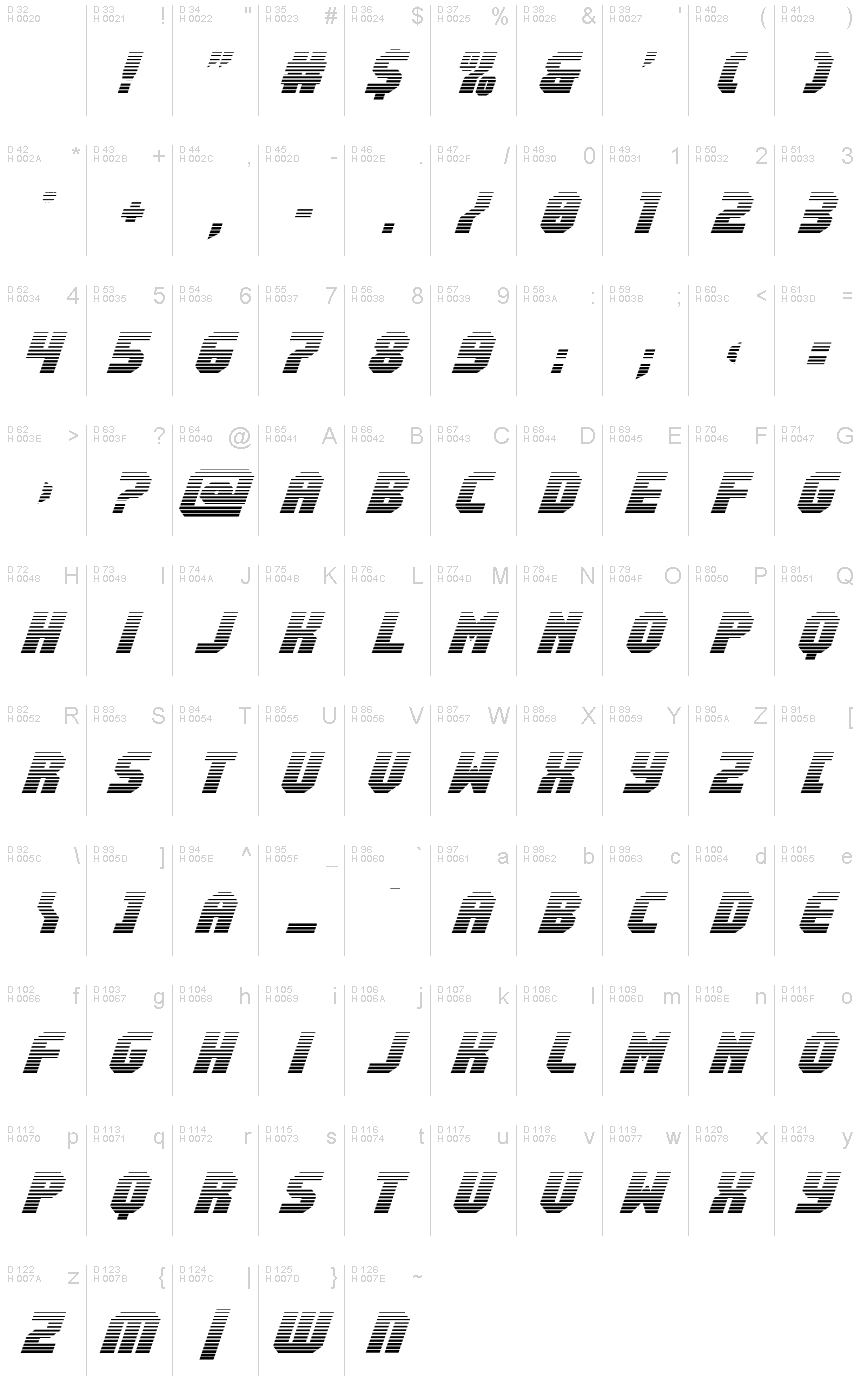
Metal Sentinel Gradient Italic
Metal Sentinel Gradient Italic is an exciting, bold display font designed by Daniel Zadorozny. Its techno style makes it perfect for modern and futuristic design projects, giving them a unique and energetic feel. It's ideal for creating logos and titles that demand attention, as well as posters or flyers that need to stand out. Metal Sentinel Gradient Italic also works well with backgrounds featuring gradients or vivid color palettes.